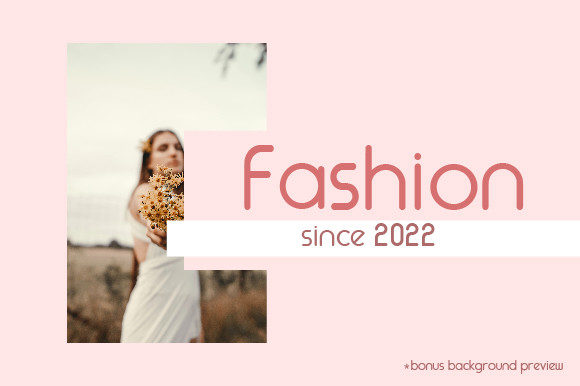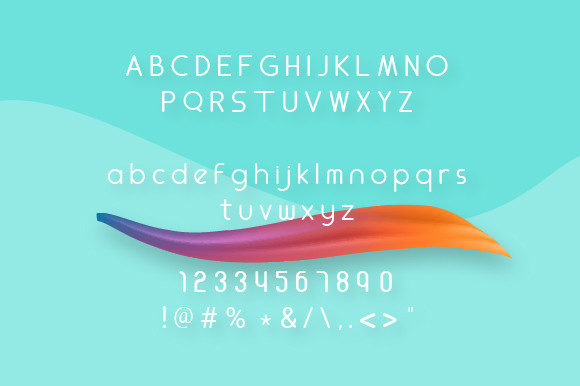
Introducing Curve Sans Pro Font: Elevate Your Designs with Elegance and Versatility
In the world of typography, the right font can make all the difference in the success of a design project. Curve Sans Pro Font is an elegant, minimal, and neat sans serif font that has been gaining popularity among designers and crafters alike. Its versatility, comfort, and professional appeal make it an ideal choice for various projects, ranging from large-scale endeavors to small and medium-sized initiatives.
What Makes Curve Sans Pro Font Stand Out?
Curve Sans Pro Font offers numerous advantages that set it apart from other fonts. Its multifunctional design allows it to adapt seamlessly to different contexts, ensuring that your project looks great regardless of its purpose or platform. Whether you’re working on a website, a logo, a brochure, or any other visual material, this font is designed to provide a professional look that will leave a lasting impression.
One of the key benefits of Curve Sans Pro Font is its comfort to the eye. The font’s clean and minimal design ensures that it remains easy to read, even at smaller sizes. This makes it perfect for body text, headings, and titles, allowing you to maintain a consistent visual identity throughout your project.
Perfect for Various Backgrounds and Applications
Curve Sans Pro Font is designed to work perfectly on various backgrounds, ensuring that your text remains legible and visually appealing. Whether you’re working on a light or dark background, this font adapts effortlessly, eliminating the need for tedious adjustments or compromises.
This font’s versatility extends to its use in different applications. From digital platforms, such as websites and social media, to print materials, like brochures and business cards, Curve Sans Pro Font is the perfect choice. Its professional appeal ensures that your project looks polished and sophisticated, making it ideal for businesses, organizations, and individuals looking to establish a strong visual identity.
Advantages for Designers and Crafters
Curve Sans Pro Font offers a range of benefits for designers and crafters, including:
• Elegant and Minimal Design: The font’s clean and simple design ensures that your project looks sophisticated and professional.
• Multifunctional: Curve Sans Pro Font adapts seamlessly to different contexts, making it perfect for various projects and applications.
• Comfort to the Eye: The font’s clean design ensures that it remains easy to read, even at smaller sizes.
• Professional Appeal: The font’s sleek and modern design ensures that your project looks polished and professional.
• Legibility on Various Backgrounds: Curve Sans Pro Font works perfectly on light and dark backgrounds, ensuring that your text remains legible and visually appealing.
Curve Sans Pro Font is an exceptional choice for designers and crafters looking to elevate their projects with elegance and versatility. Its multifunctional design, comfort to the eye, and professional appeal make it an ideal font for various applications. Whether you’re working on a large-scale project or a small initiative, Curve Sans Pro Font is sure to provide a polished and sophisticated look that will leave a lasting impression.